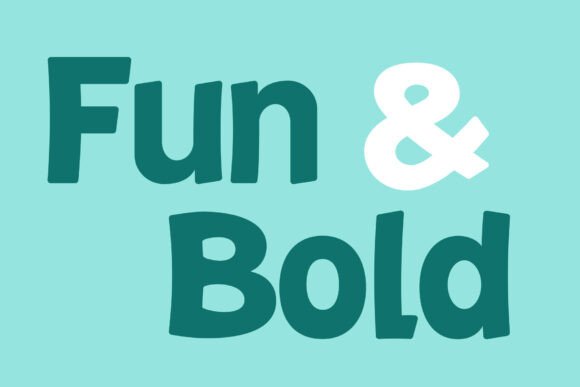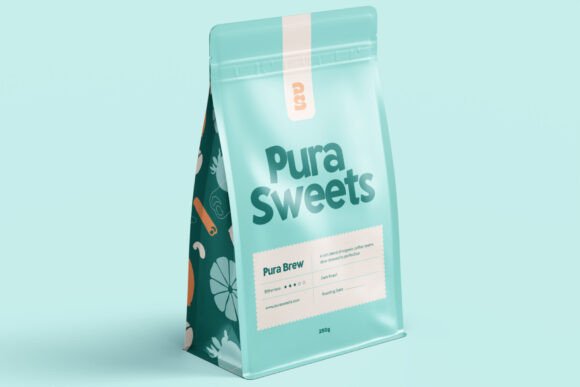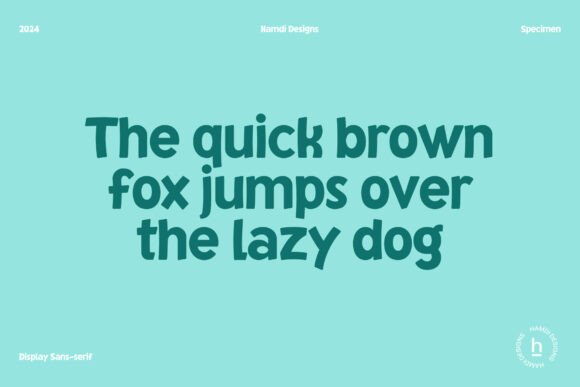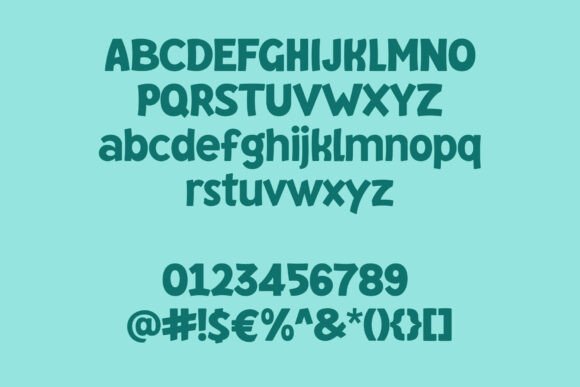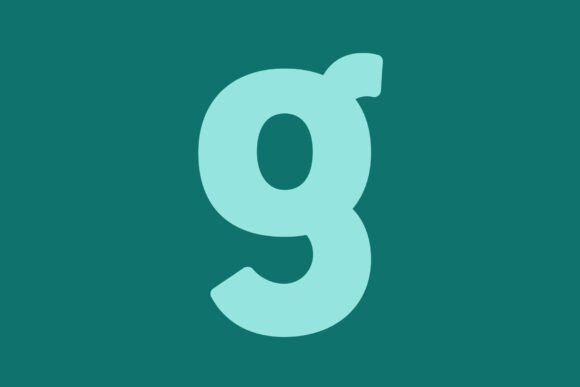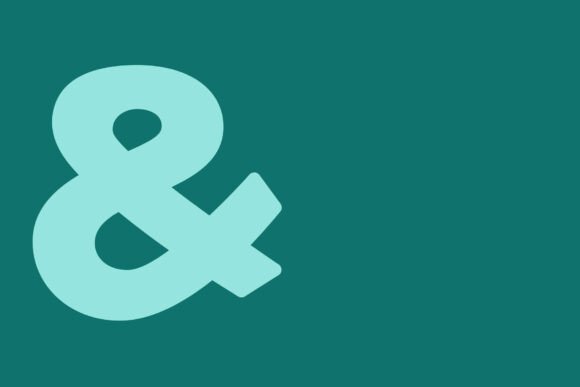
Introduction to Hd Pura Font
HD Pura: Your Go-To Font for Fun and Bold Designs.
Looking to add a splash of playfulness to your brand identity Meet HD Pura, the display font that brings fun and boldness to your designs.
Key Features of Hd Pura Font
Why Choose Hd Pura Font?